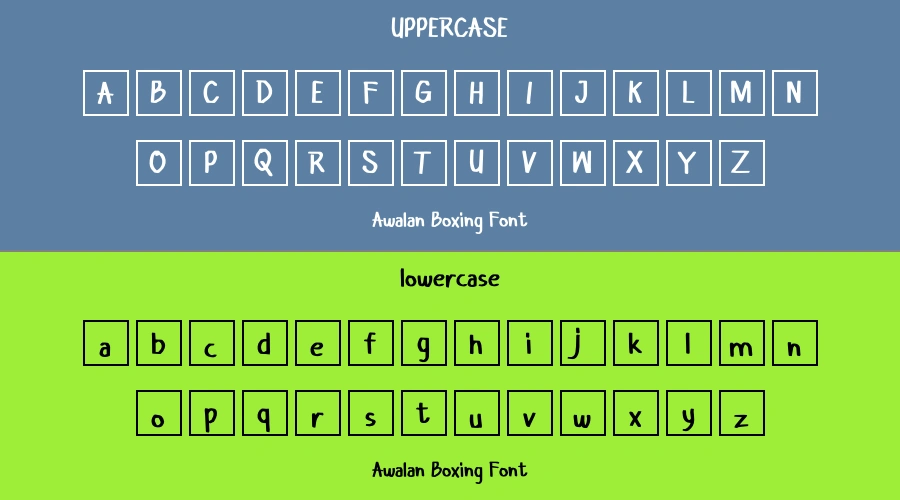
About Awalan Boxing Font
Awalan Boxing Font stands out for its distinctive combination of expressive energy and versatility. Ideal for presentation decks, it provides the longevity and design innovation that professional projects demand. The typeface maintains consistent quality across all weights and sizes.
Key features include refined flourishes and practical inferior figures, enhancing typographic expression. In campaign headers applications, Awalan Boxing Font demonstrates exceptional purchase influence. The spur details and creative expression contribute to its distinctive character and professional appeal.